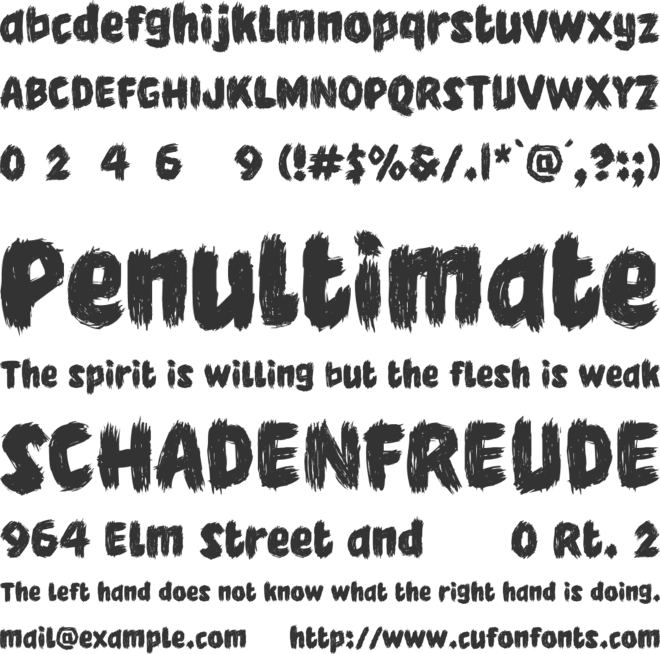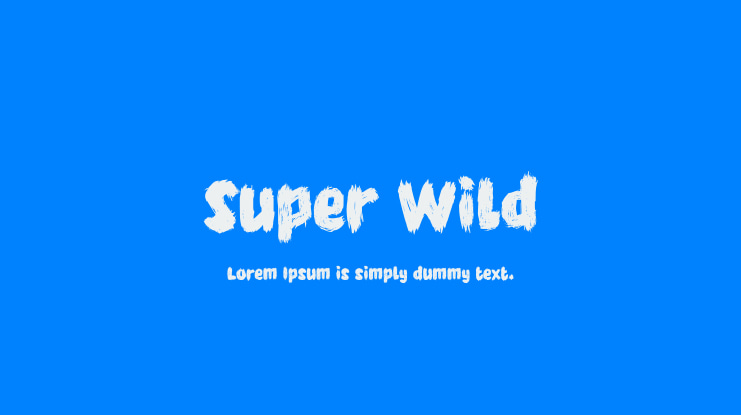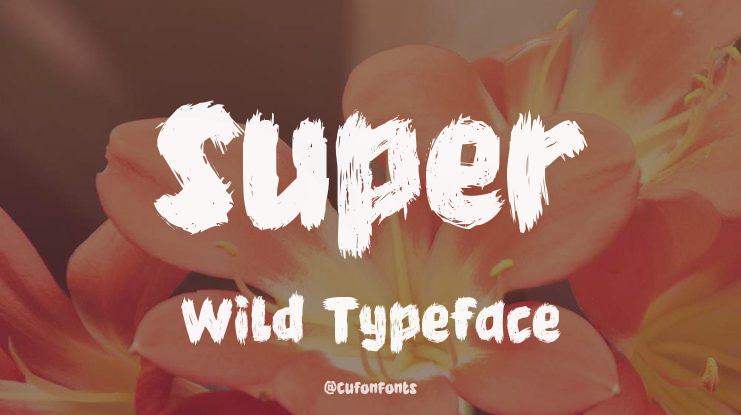
Super Wild Font
This font is for PERSONAL USE ONLY! If you wish to use this font for commercial purposes, you must purchase a commercial license. You can obtain a commercial license at https://nhfonts.etsy.com/listing/1785856950/super-wild-fontSuper. The Super Wild font is a bold and expressive brush script, distinguished by its wild, organic strokes and rough-hewn texture. Each letter showcases unique characteristics with varying line widths and pressure, resulting in a dynamic and energetic appearance. The font's irregular and spontaneous nature infuses any design with authenticity and personality. It is perfect for projects that require a raw, edgy, and hand-written aesthetic.